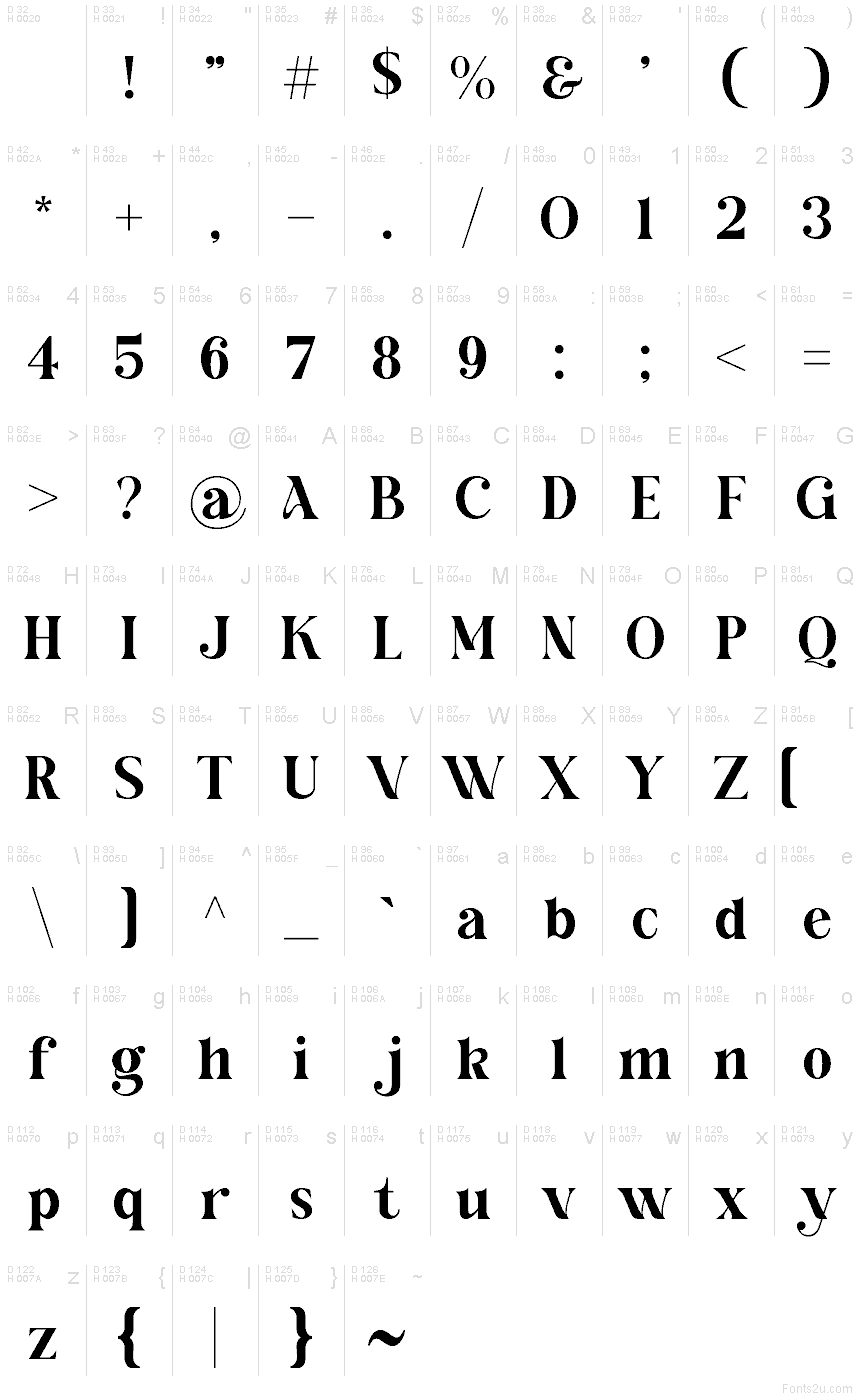
Natline
Natline font by Boybuzsky is a free serif display font. It leans into lush, inky strokes that swell into sculpted curves, then snap to hairline thins—giving headlines a luxe, editorial sheen. The rhythm feels deliberate and dramatic, with generous shapes that read confidently at size while still catching light like polished lacquer.
Using Natline, titles and wordmarks gain presence for beauty branding, fashion lookbooks, packaging, posters, magazine mastheads, and event invitations. This free font shines when set large with slightly tight letterspacing; let the curves carry the drama. Pair with a plain, unobtrusive sans for body copy to keep the spotlight on Natline’s elegant contrast.